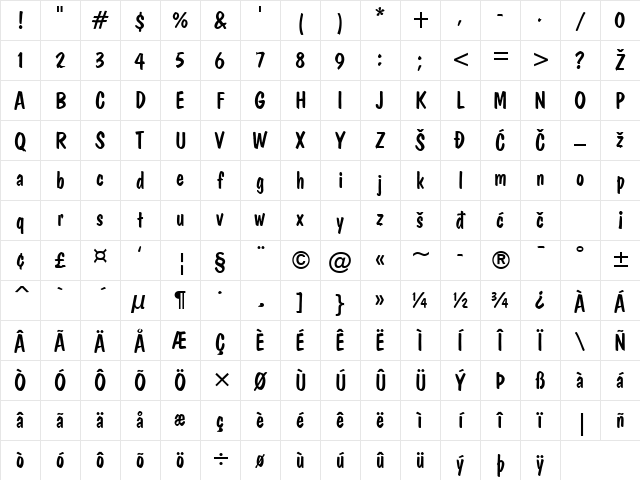
Complete DawnCastle Regular glyph index. Displaying only characters natively supported by DawnCastle Regular font.
Design Context for DawnCastle
DawnCastle is a composed and adaptable typeface that performs quietly and consistently across a wide range of design contexts.